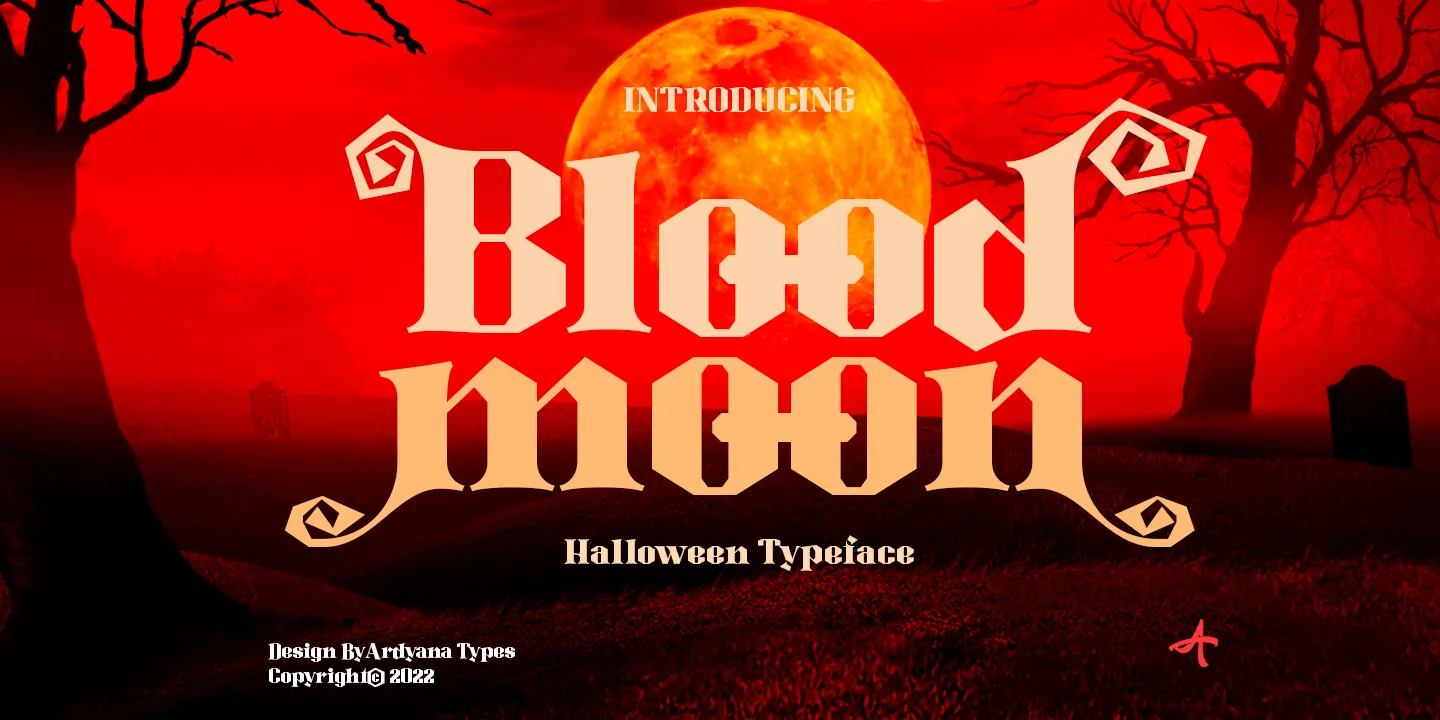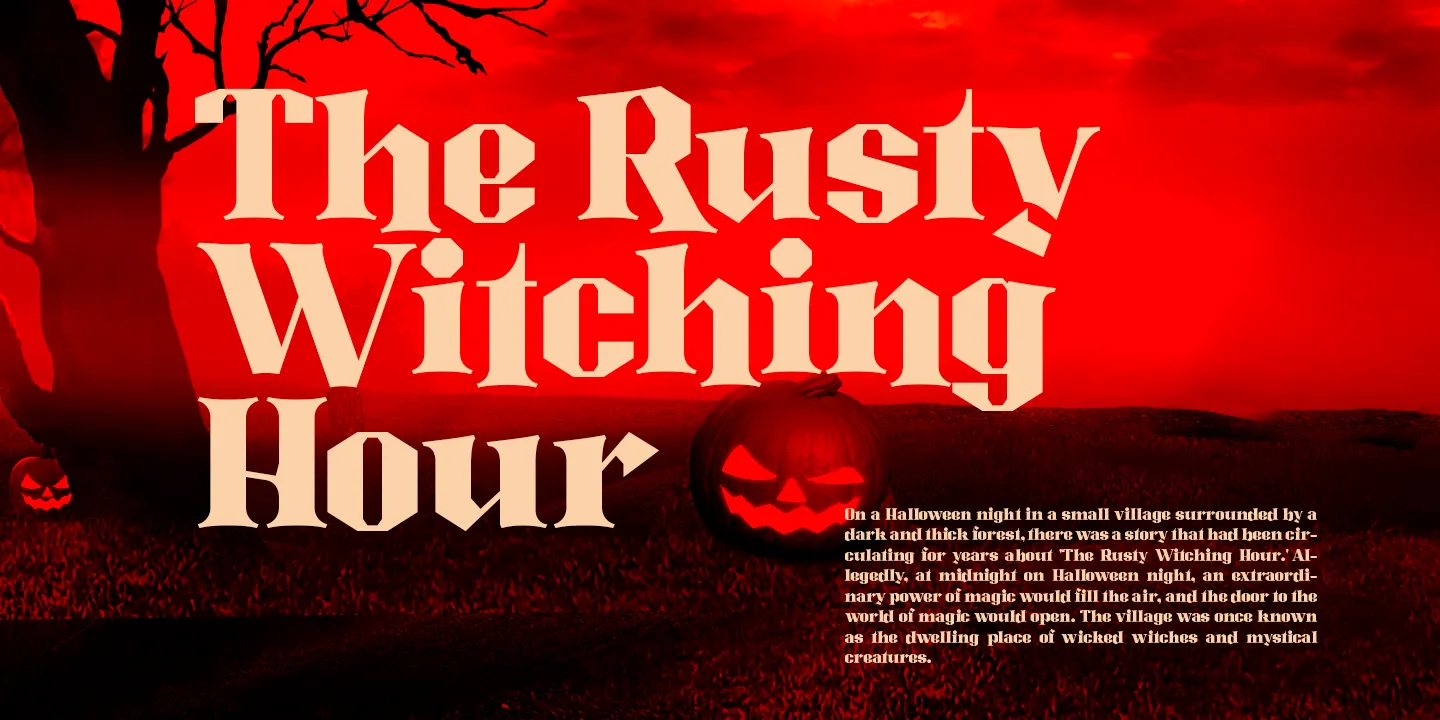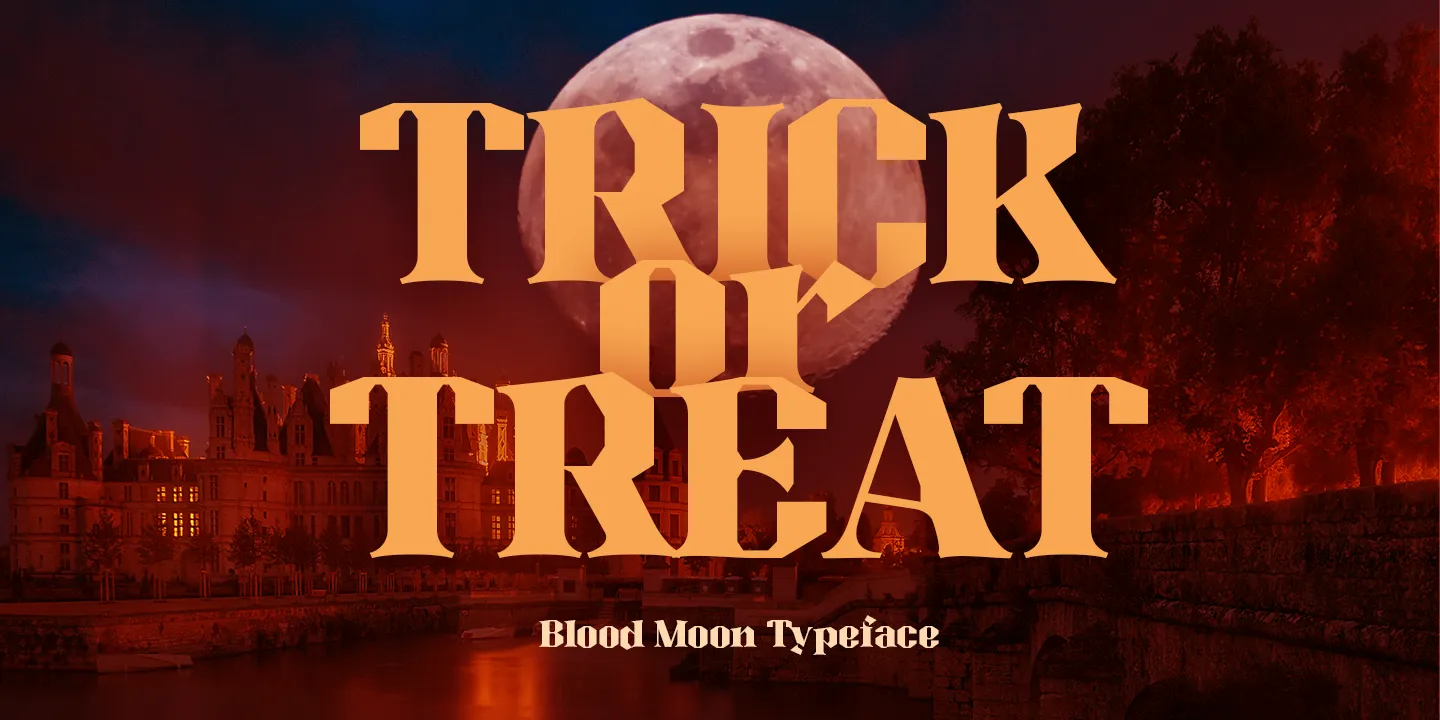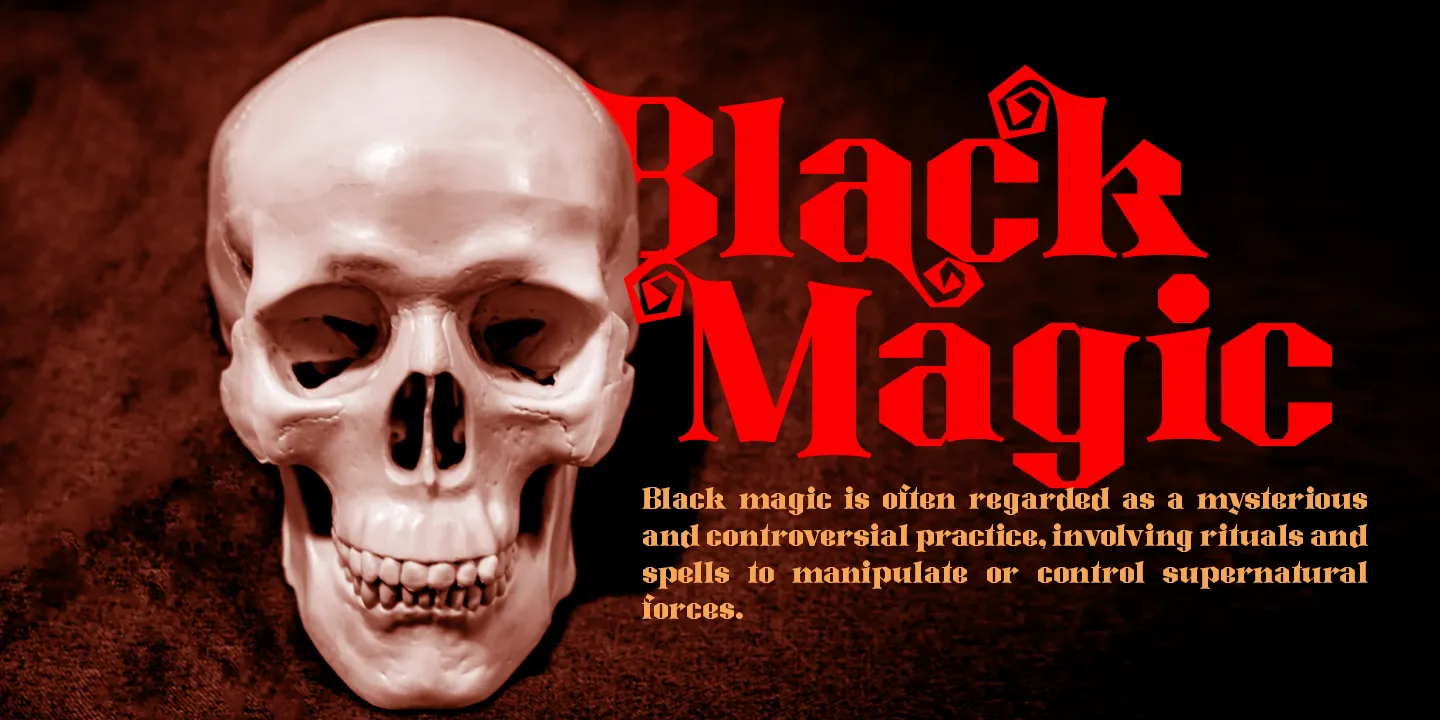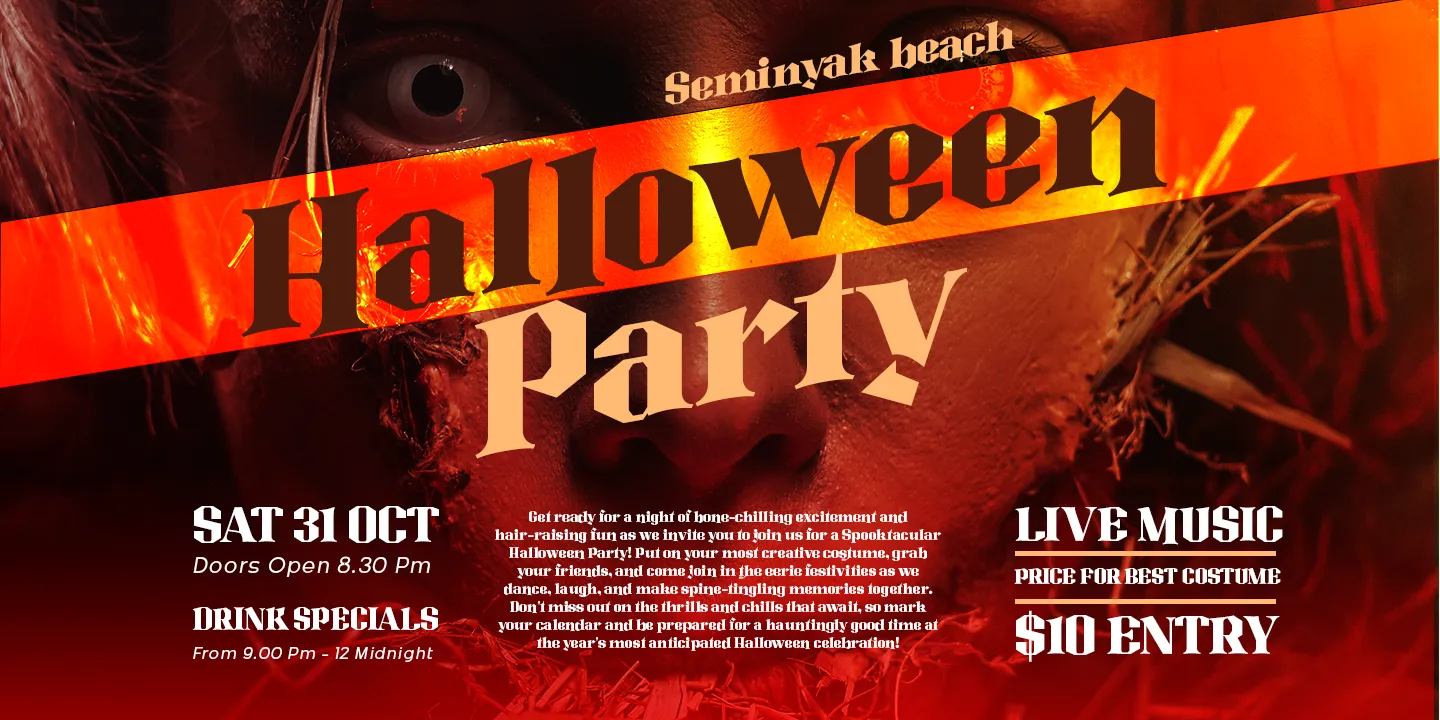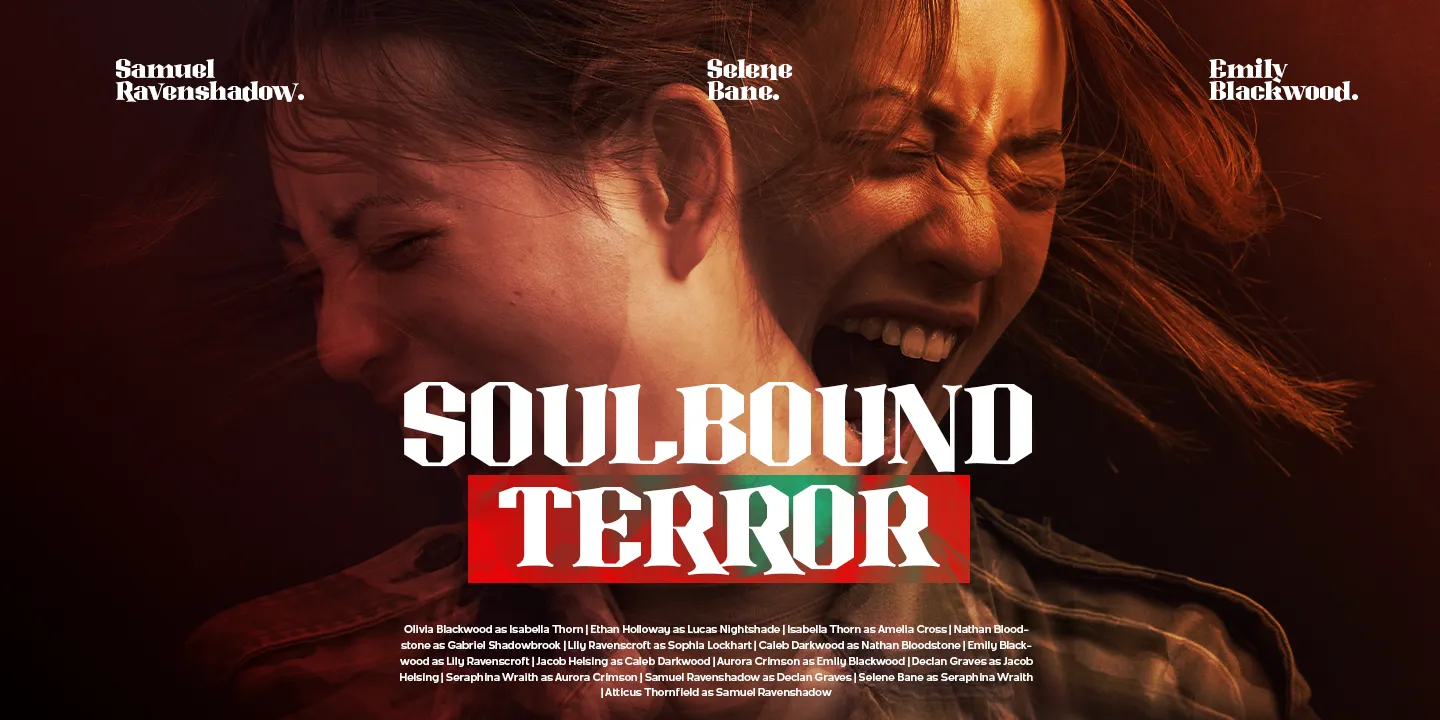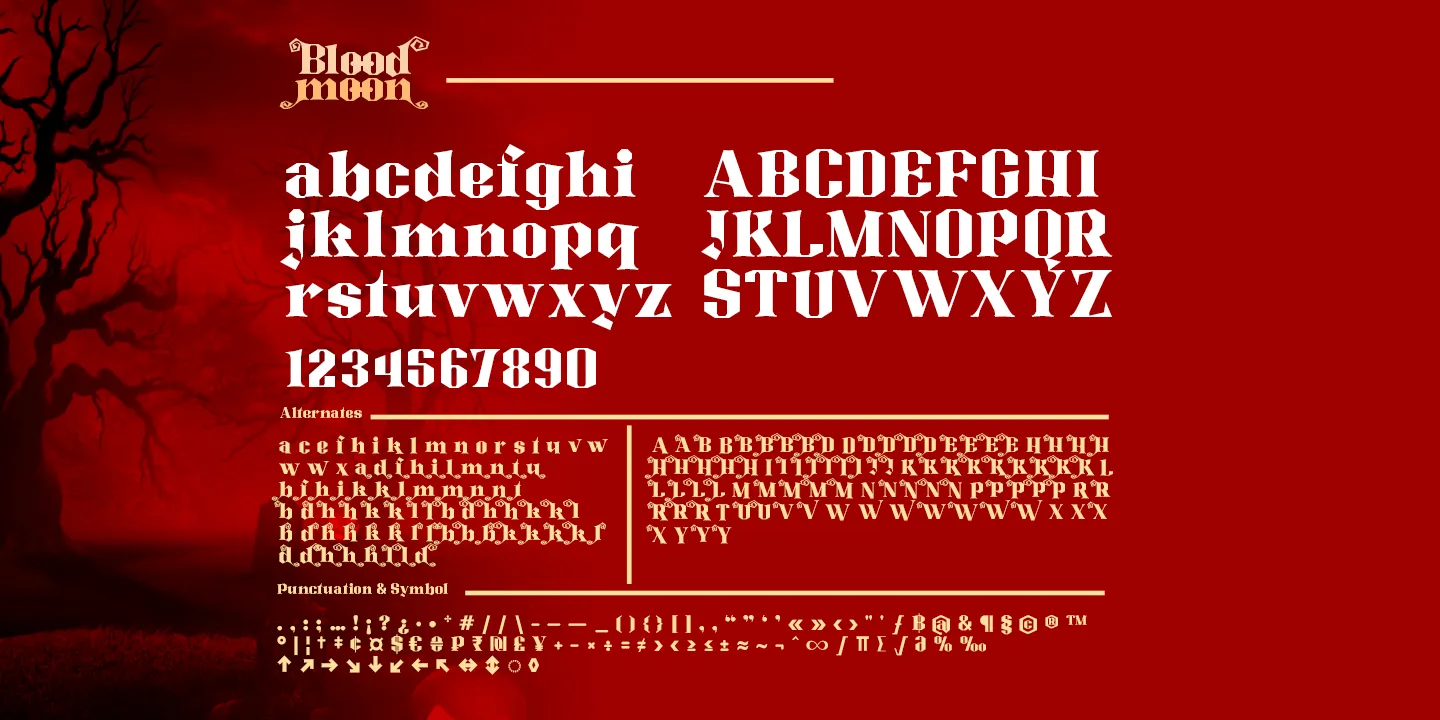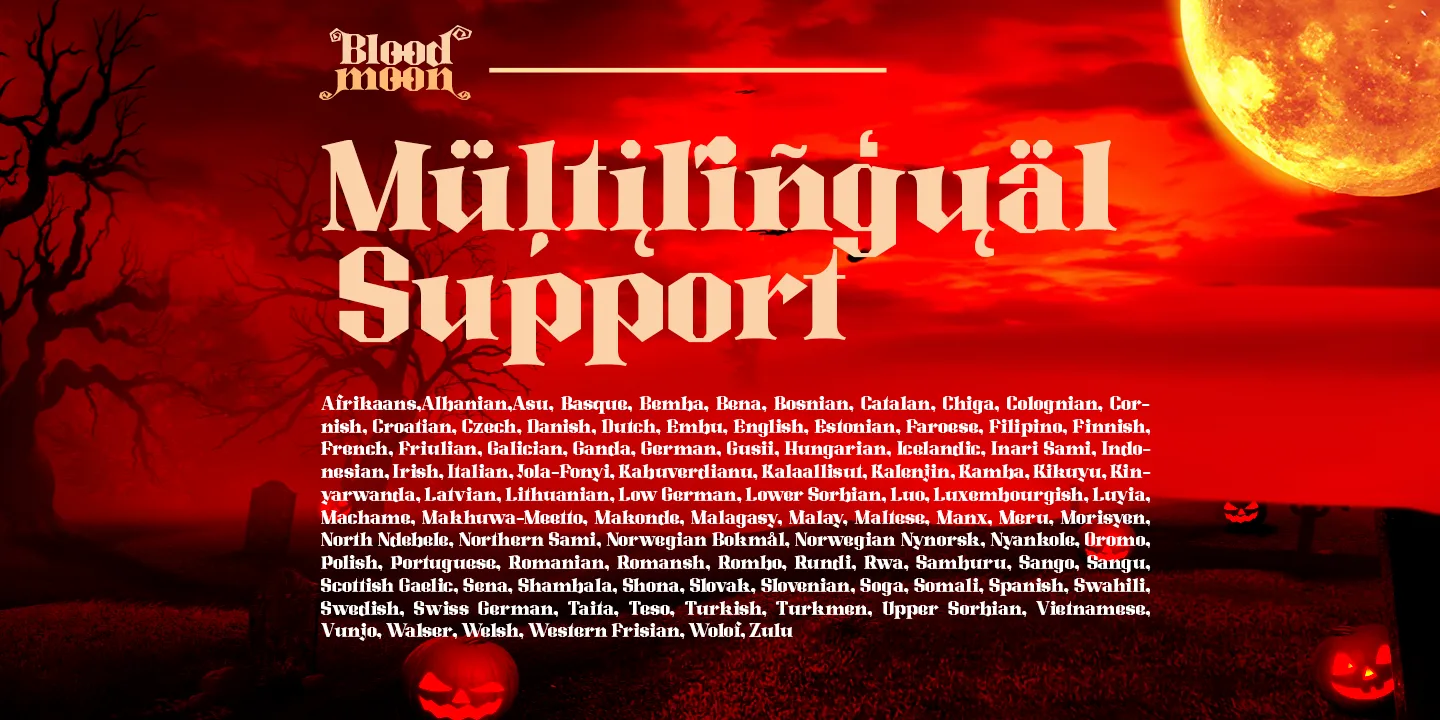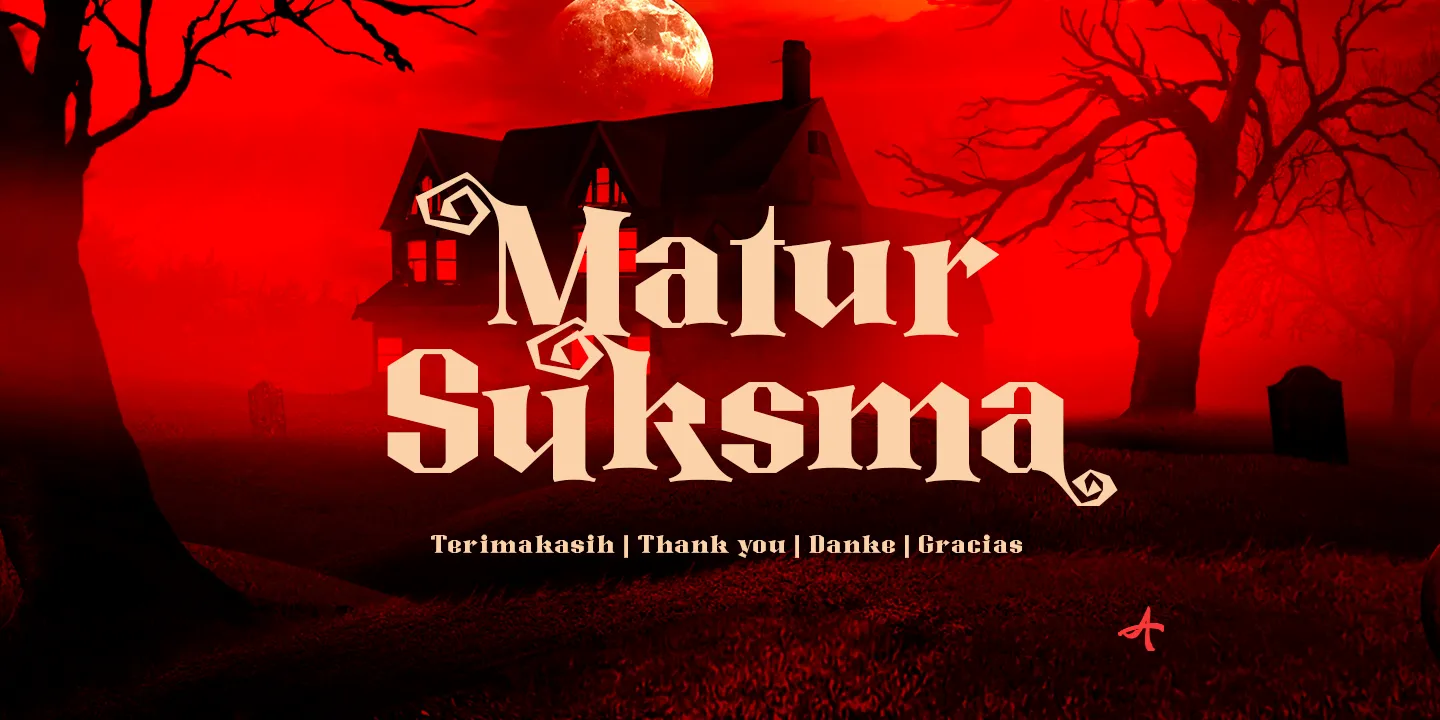
Blood Moon - Typeface
Blood Moon - typeface is a typographic creation that combines unique and captivating elements. Crafted specifically to celebrate the Halloween ambiance, this font carries the aura of a mysterious and thrilling Blood Moon - typeface" With an elegant serif design, the font seamlessly blends sophistication and tension, making it a perfect choice for various design projects.
Featuring distinctive letterforms and easily readable characters, Blood Moon - typeface ensures that conveyed messages through the text remain clear and effective. Each letter bears sharp lines that add strength and visual allure. Even with the accompanying touch of horror, the font maintains readability, rendering it suitable for a range of content.
Blood Moon - typeface design allows it to transcend beyond the Halloween or horror theme. The beauty and flexibility of its lines make it suitable for diverse design projects, spanning from casual to serious themes.
Equipped with a variety of OpenType features, the font provides flexibility in text styles and forms. From letter variants to alternate writing styles, Blood Moon - typeface enables designers to express their creativity more freely.
Moreover, another notable feature is its multilingual support. The font accommodates numerous languages, ensuring that the intended message can be accurately conveyed across different parts of the world.
Thus, "BloodMoon Serif" is not merely a Halloween-themed font with eerie blood moon undertones. Beyond that, the font represents a typographic work that combines visual strength with user-friendliness, granting designers the opportunity to explore various themes and ideas.